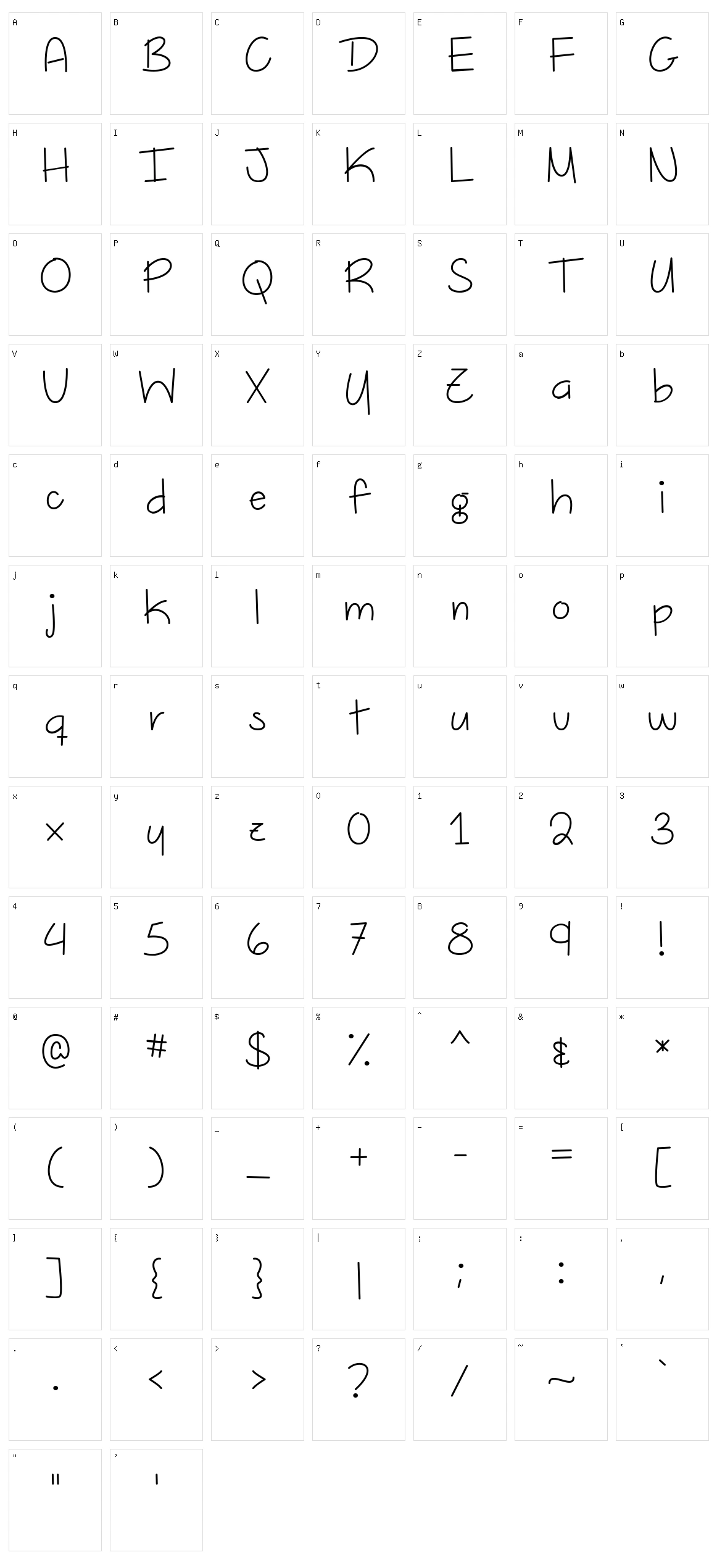
The free font Dutch Tulips is carefully designed by Misti's Fonts, showcasing a thoughtful balance of creativity and usability and falls under the Script font style. When you download the ZIP file, it contains only 57.15 KB of font files, making it lightweight and quick to download. Please review the license details below to understand permitted usage and distribution rights. If license information is not available, we recommend using this font for personal projects only or contacting the author directly for commercial usage permissions.